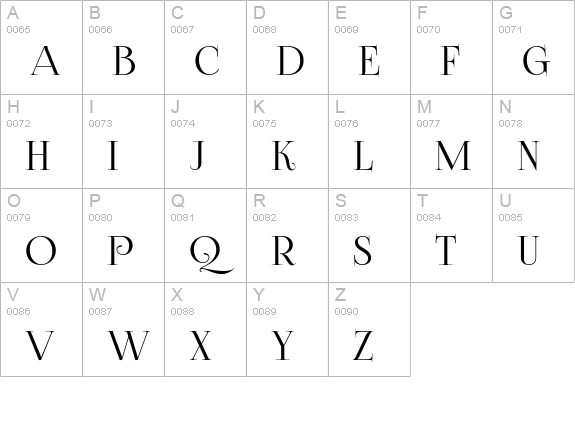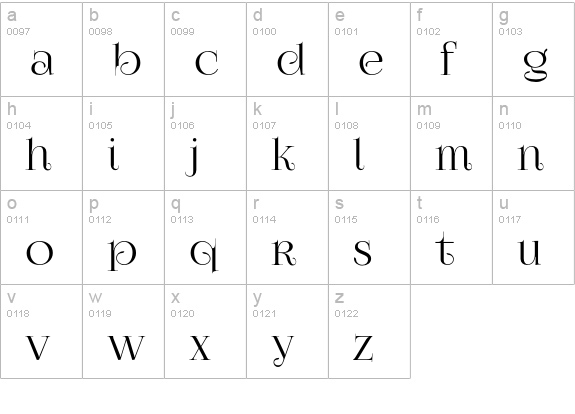
FoglihtenNo07calt Font Details
FoglihtenNo07calt is a stunning and versatile font that combines elegance with a touch of vintage charm. Its graceful curves and intricate detailing make it the perfect choice for a wide range of design projects, from wedding invitations to logo designs. This font exudes a sense of sophistication and refinement, with its delicate strokes and artful flourishes. It effortlessly captures attention and adds a touch of class to any creative endeavor. What makes FoglihtenNo07calt even more appealing is the fact that it is free. Yes, you read that right – this exquisite font can be yours without spending a single penny. It is freely available to download at FontsMarket.com, a trusted source for high-quality fonts. Whether you are a professional designer or a casual enthusiast, FoglihtenNo07calt is a must-have addition to your font collection. Its versatility allows it to be used in a variety of projects, while its timeless beauty ensures that it will never go out of style. So why wait? Enhance your designs with the allure of FoglihtenNo07calt and let its free download at FontsMarket.com be the icing on the cake. Give your creations the elegance and sophistication they deserve with this remarkable font.